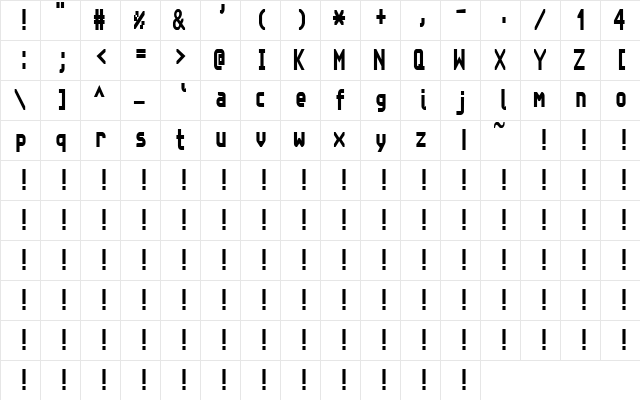
Topaz New Regular
Design Context for Topaz New Typeface
Topaz New is a composed and adaptable typeface that performs quietly and consistently across a wide range of design contexts.